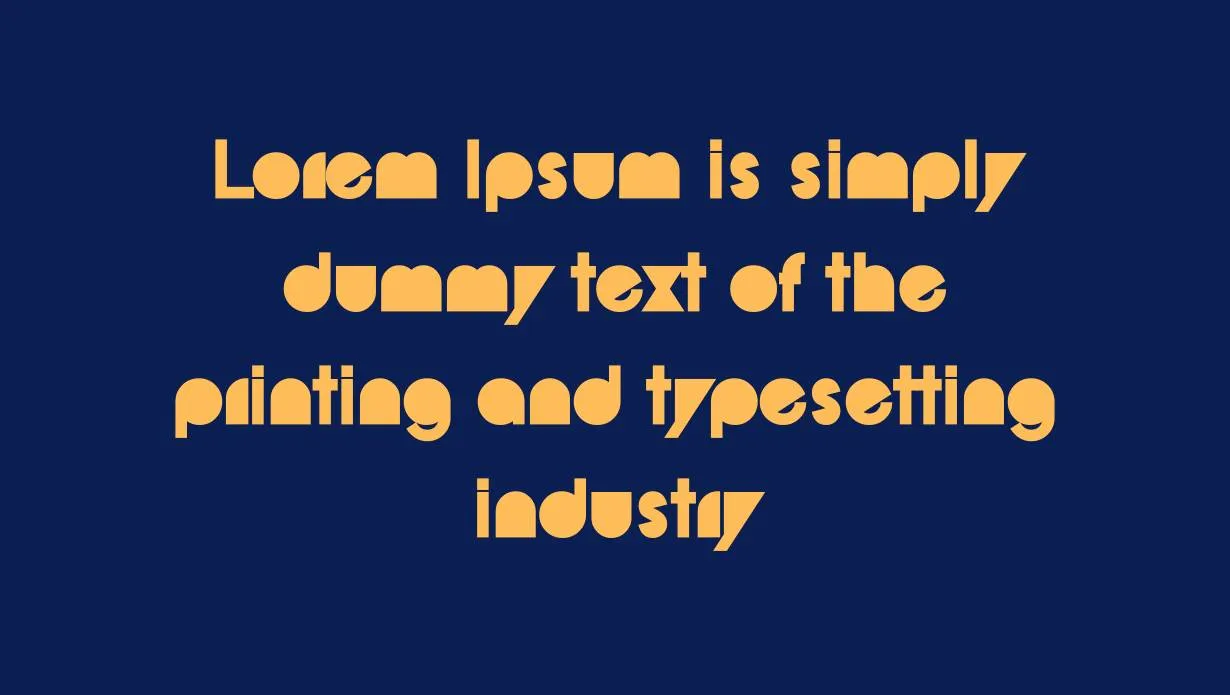
The MACIZA Font belongs to the Display font family that was designed by Pedro Pan along with TTF and OTF formats. It also consists of bold characters in large and small letters, digits, and more which can make it more versatile and unique.
It supports international languages and the Unicode range Basic Latin, Latin-1 Supplements, Latin Extended-A, General Punctuations, and Spacing Modifier Letters.